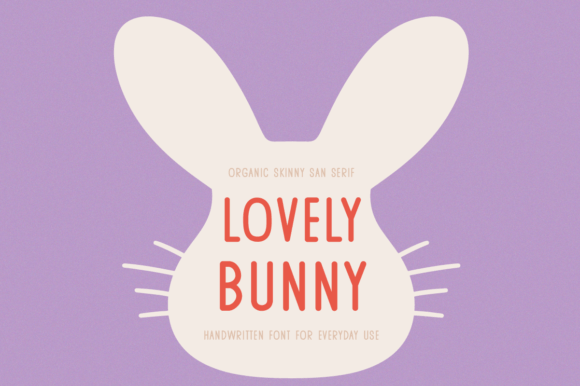
Feel like your designs are stuck in a rut? Craving a fresh, captivating font that exudes playfulness and charm? Look no further than Lovely Bunny! Our meticulously crafted sans serif masterpiece adds a touch of whimsy and creativity to your digital creations.
With its elegant curves and lively strokes, Lovely Bunny transports you to a world of imagination. Its organic, skinny structure brings a touch of authenticity and uniqueness to any project. Whether you're designing posters, logos, greeting cards, or packaging, this font will make your designs pop.
Unleash your artistic flair by using Lovely Bunny for diary entries and heartfelt notes. Let its playful vibe dance across your words, capturing the essence of your thoughts and feelings. Dive into the world of illustration and add a dash of whimsy to your artwork. The possibilities are boundless with Lovely Bunny as your creative companion.
Immerse yourself in the font's versatility. Script tattoos take on a whole new meaning with Lovely Bunny's intricate strokes. Its delicate lines intertwine to create mesmerizing designs that will leave lasting impressions. And for those seeking a touch of nostalgia, Lovely Bunny adds a vintage charm to any project, evoking memories of simpler times.